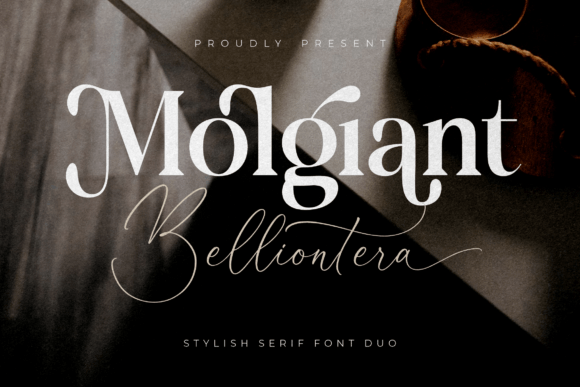
Unleash the Power of Elegance with Molgiant Belliontera Font Duo: A Symphony of Serif and Script for Your Creative Endeavors
In the realm of design, where aesthetics reign supreme, Molgiant Belliontera Font Duo emerges as a celestial beacon, illuminating your creative journey with its captivating allure and timeless charm. As a serif and script typeface of unparalleled beauty, Molgiant Belliontera embodies the essence of sophistication and grace, transforming your digital creations into masterpieces of elegance.
Molgiant Belliontera Font Duo is more than just a collection of letters; it's an artistic expression that captivates the senses and stirs the imagination. The serif font exudes a timeless elegance, its delicate strokes reminiscent of the finest calligraphy. The script font, with its graceful curves and flowing lines, adds a touch of whimsy and romance, creating a harmonious balance that elevates your designs to new heights of sophistication.
With Molgiant Belliontera Font Duo, you hold the key to unlocking a world of creative possibilities. Envision crafting an elegant logo that exudes professionalism and luxury. Imagine designing a book cover that captures the essence of a timeless classic. Let your imagination soar as you create marketing materials that radiate sophistication and leave a lasting impression on your audience.
The versatility of Molgiant Belliontera Font Duo knows no bounds. It effortlessly adapts to a myriad of design projects, from fashion branding to magazine layouts, from wedding invitations to social media posts. Its charm shines through, whether you're designing for print or digital media.